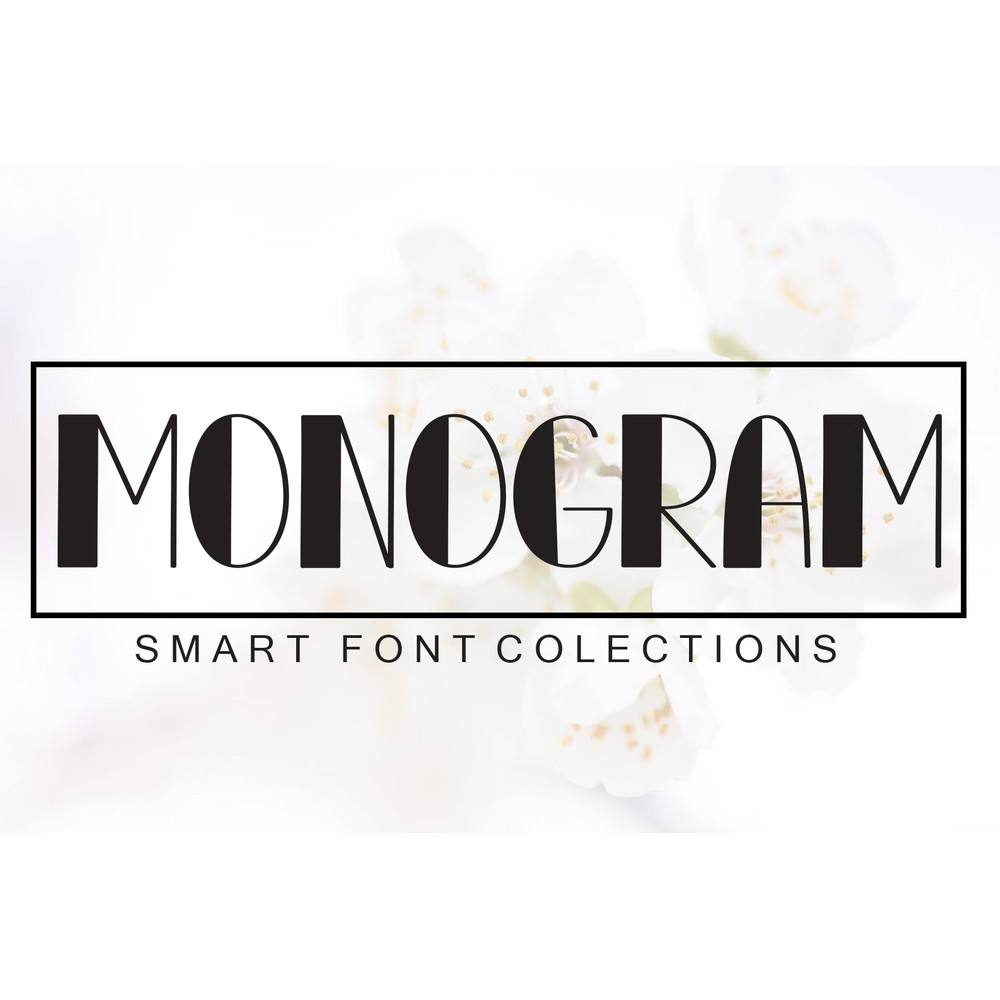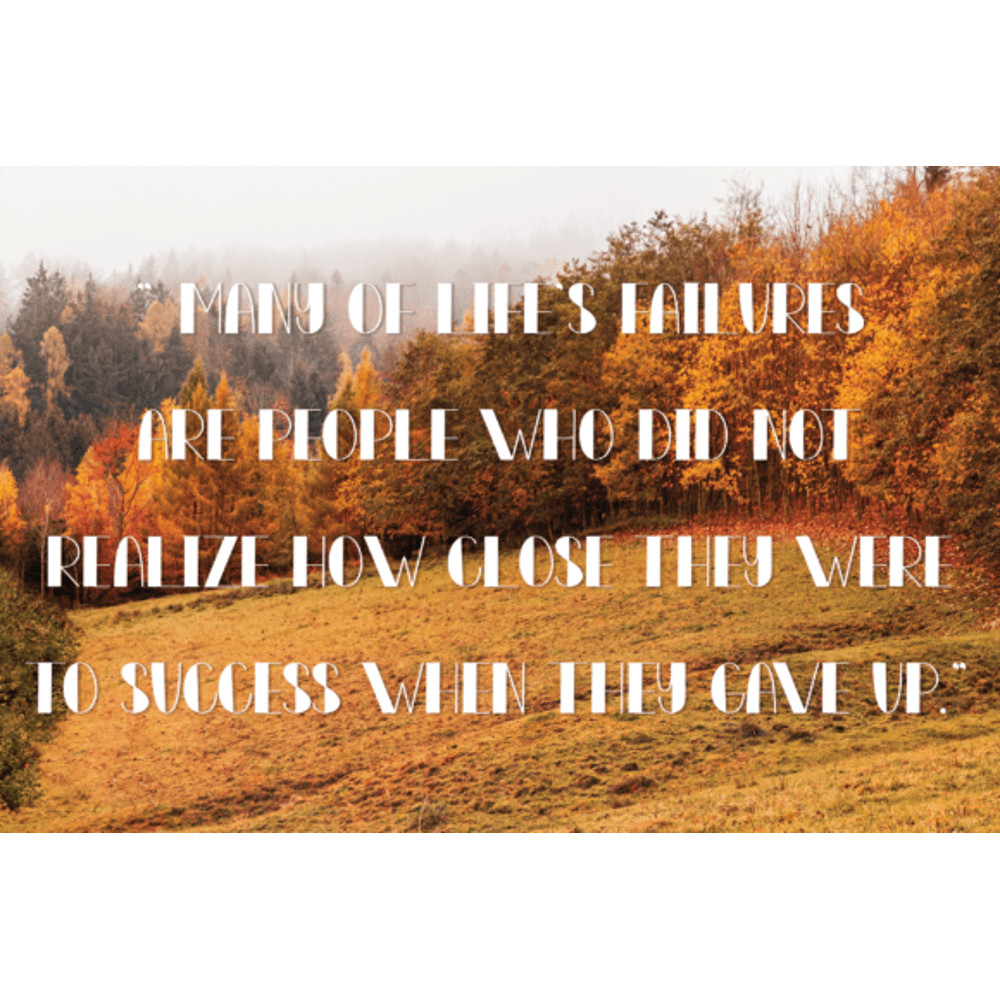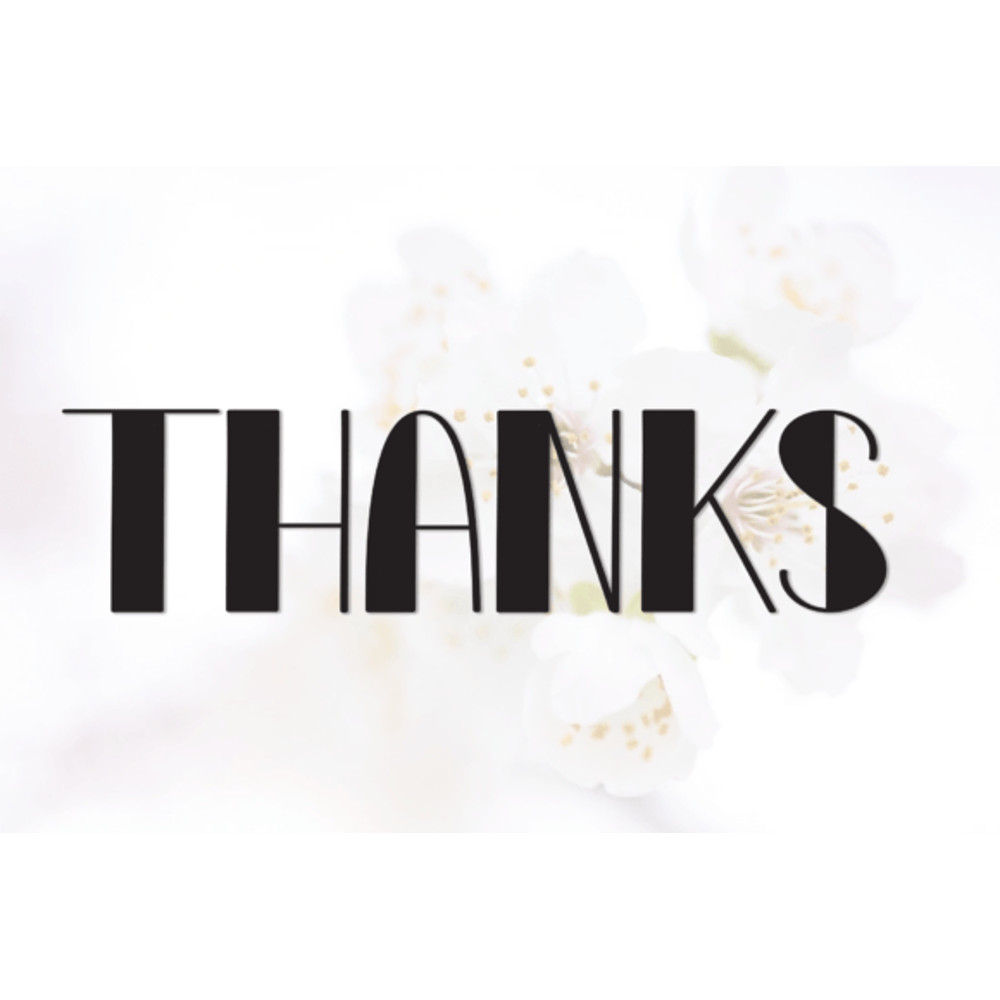
Monogram is a sweet and friendly handwritten font. Its natural and unique style makes it incredibly fitting to a large pool of designs. The only limit is your imagination!